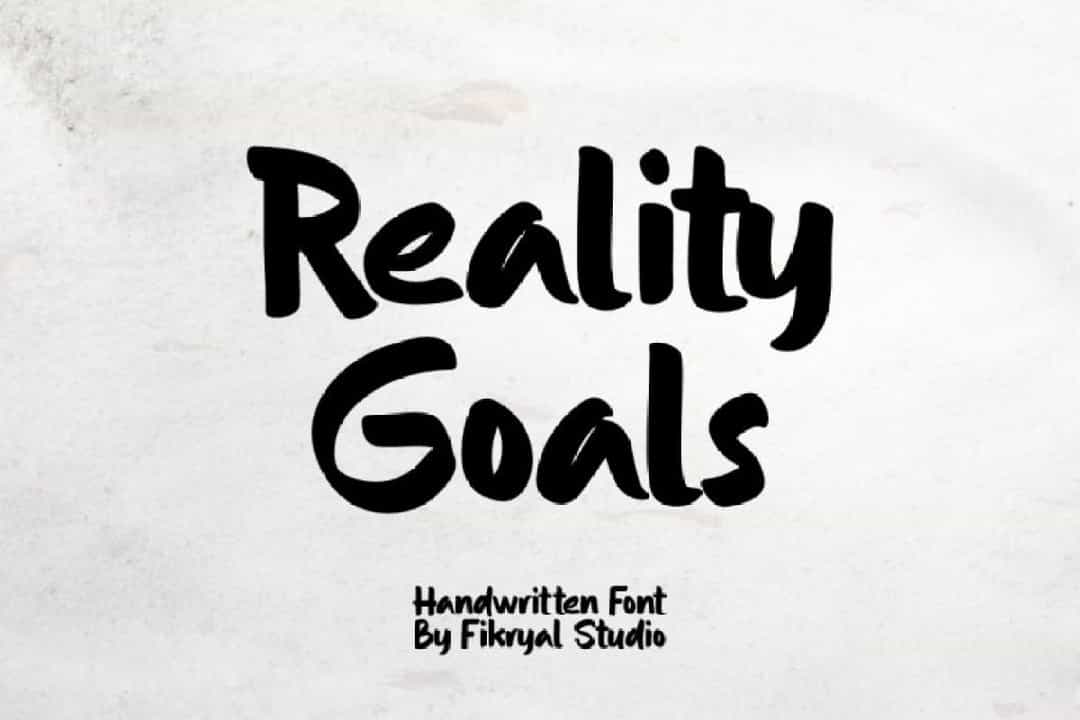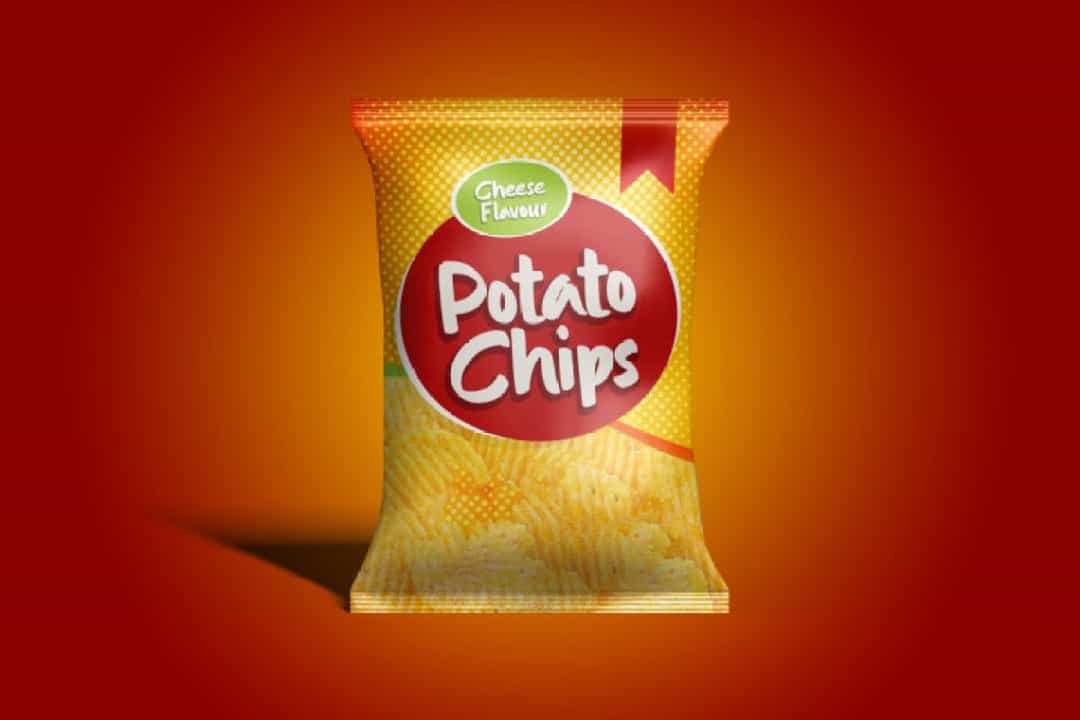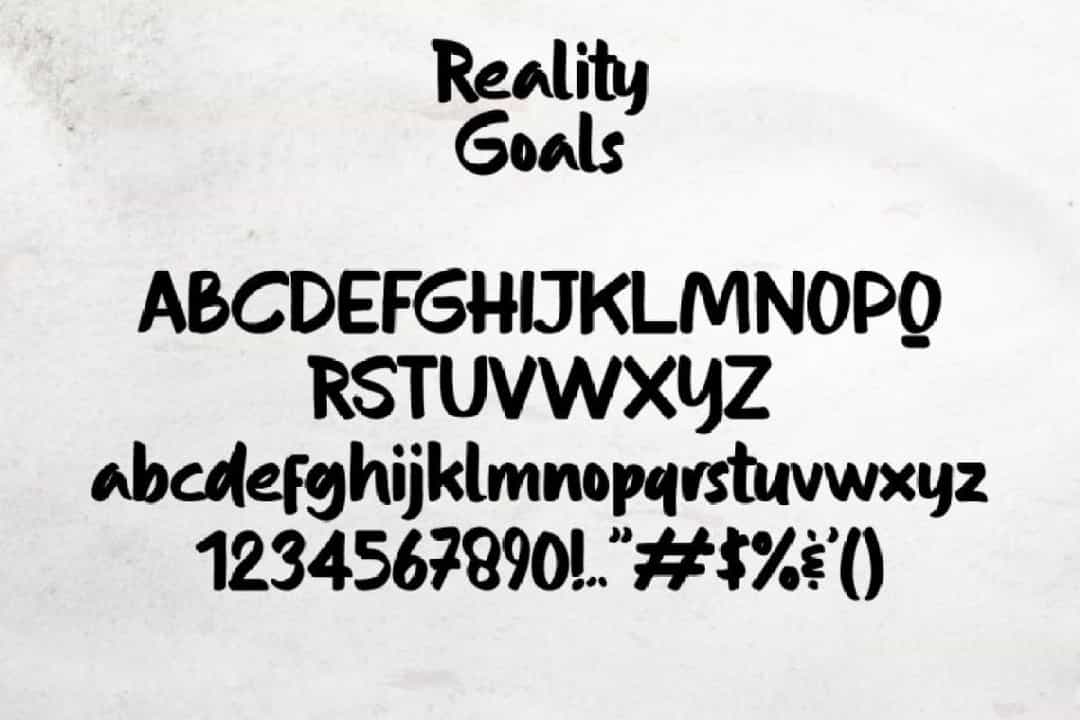
Discover Reality Goals Font, part of the Handwritten Display collection—a versatile and unique font perfect for adding a personal touch to your projects. Download it for free and enjoy crafting designs with style, from invitations to social media posts. This font is available exclusively for personal use, giving you the freedom to create without limits. Unlock your creativity with Reality Goals Font today!
Real Goals is an eye-catching and stylish handwritten display font with plenty of personality and imagination. Perfect for use across various projects such as branding marketing materials and social media graphics as well as invitations, quotes and much more – Real Goals It will add style and creativity.